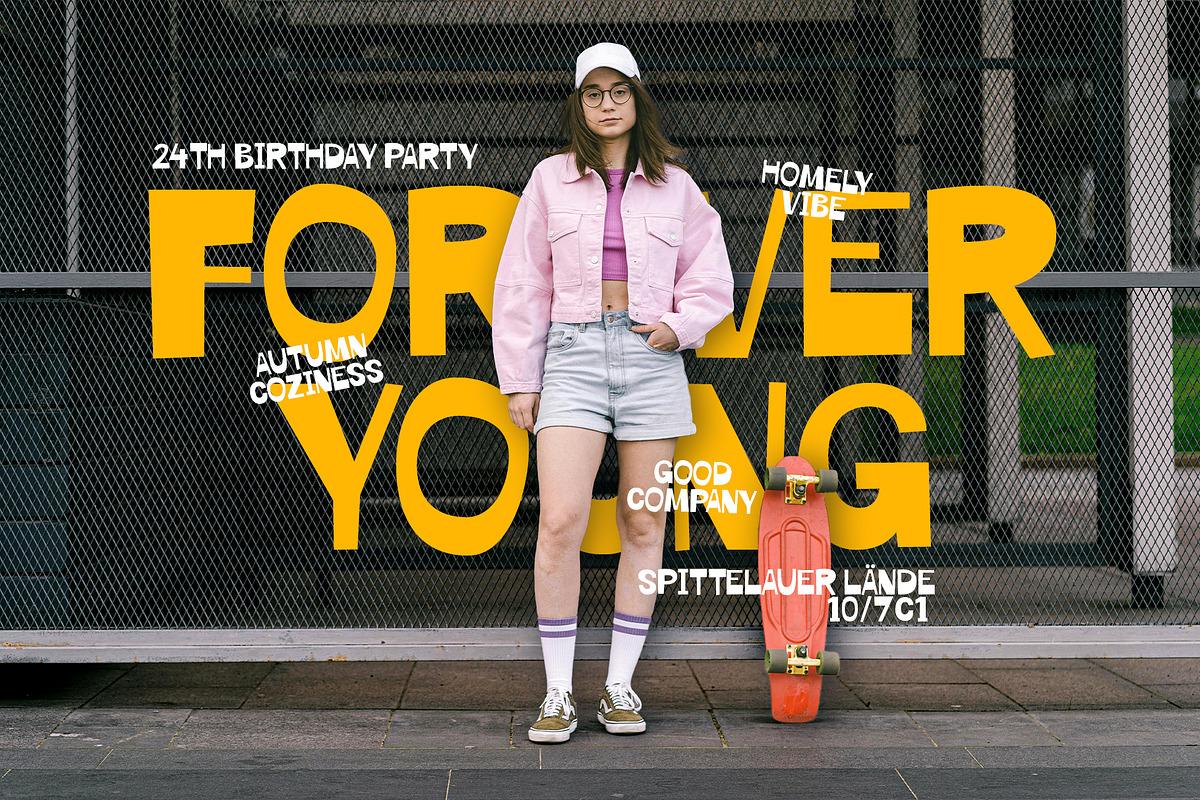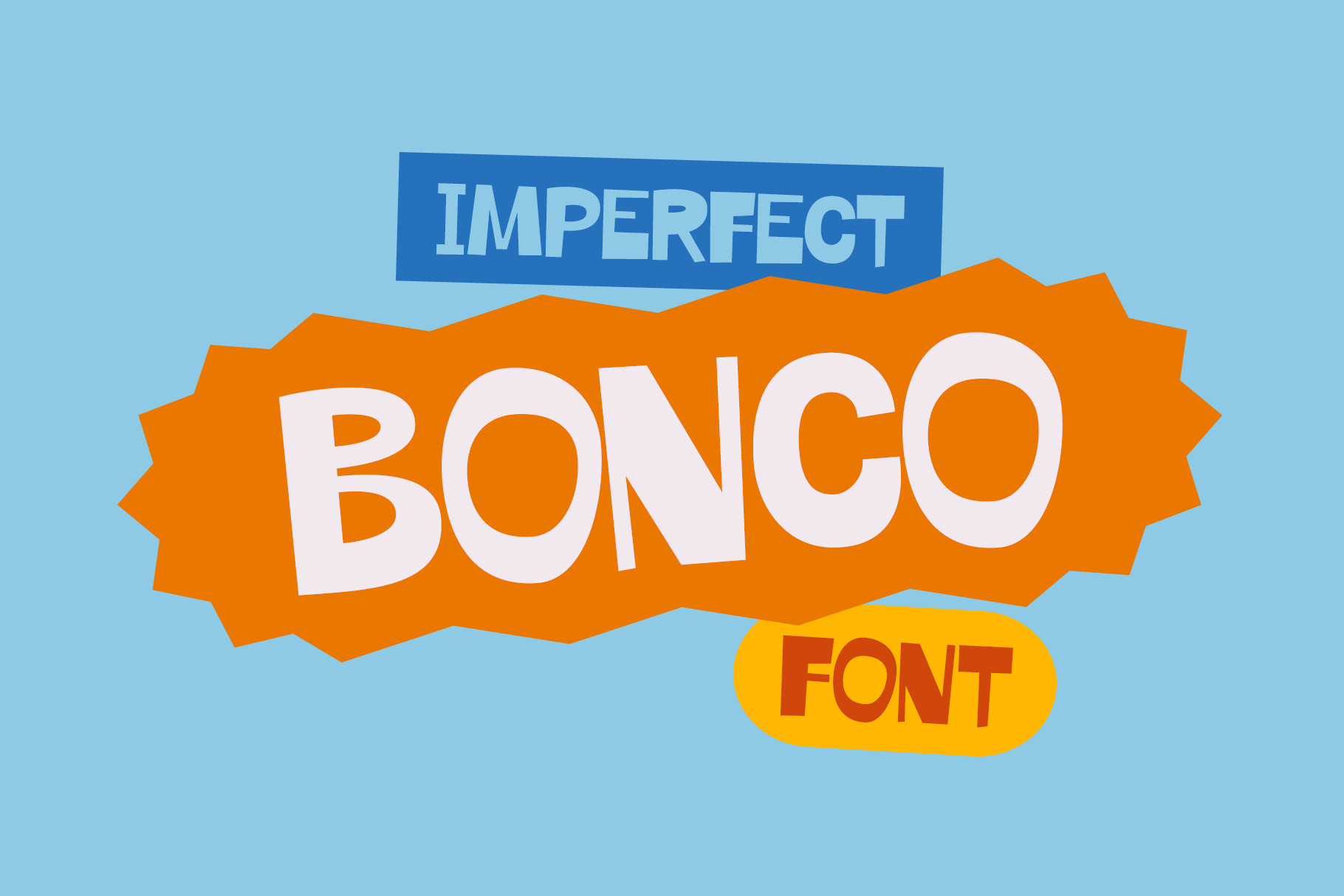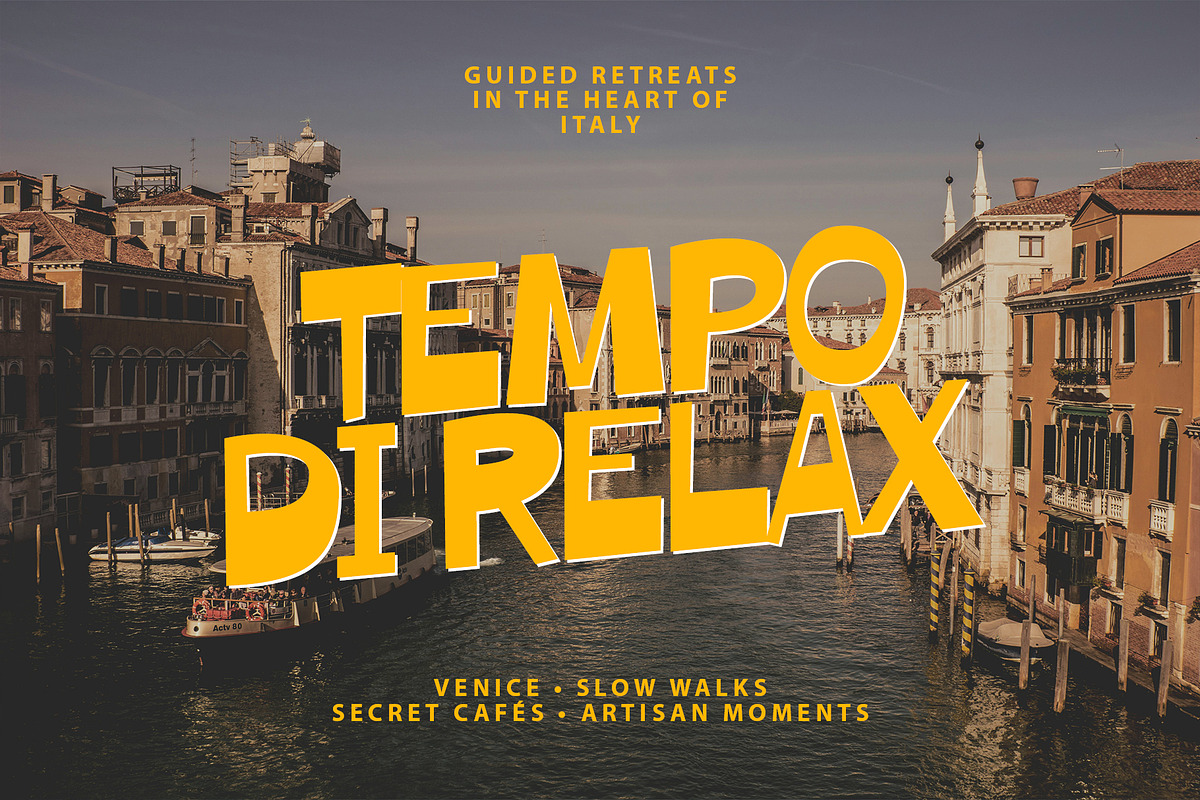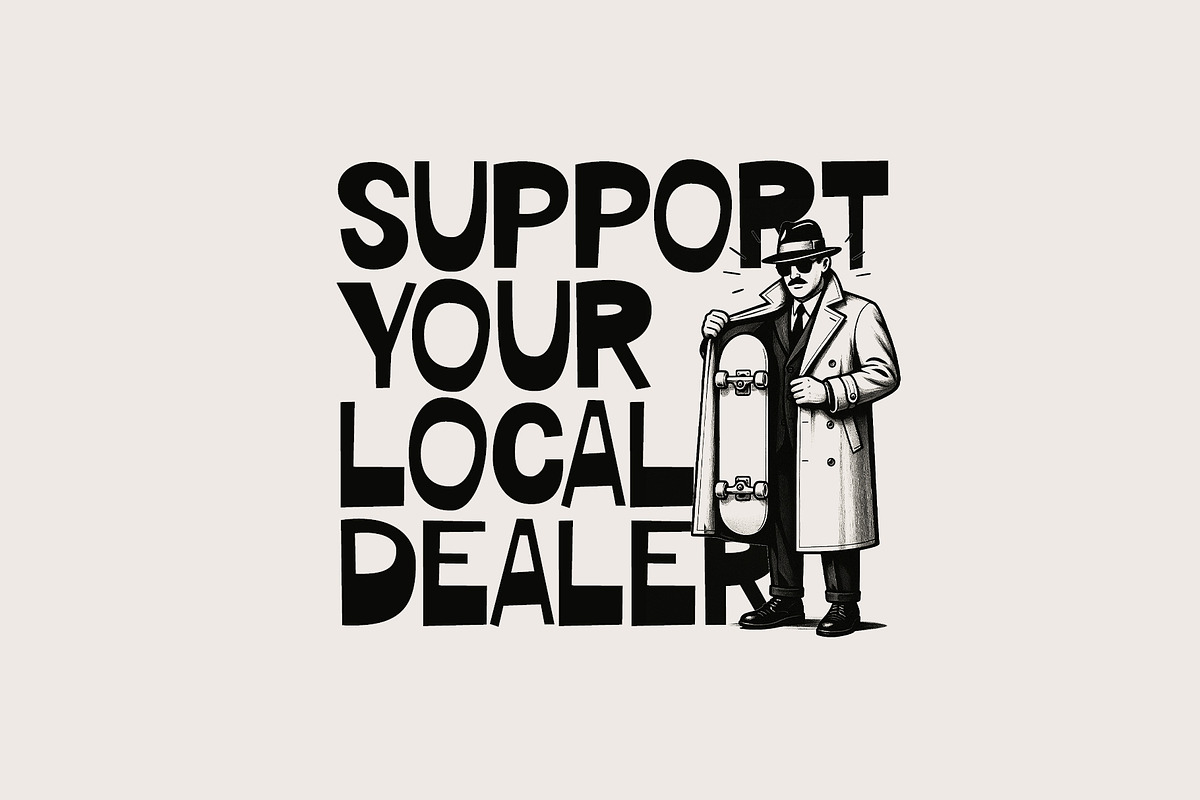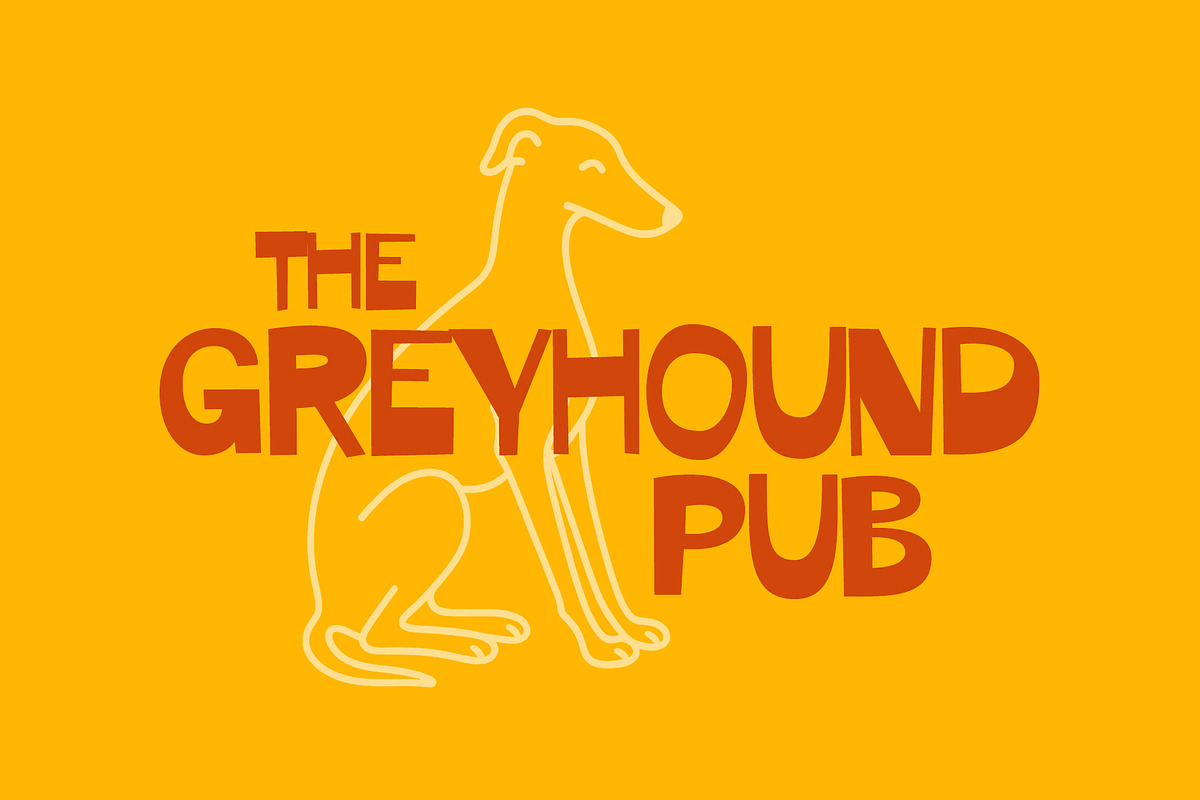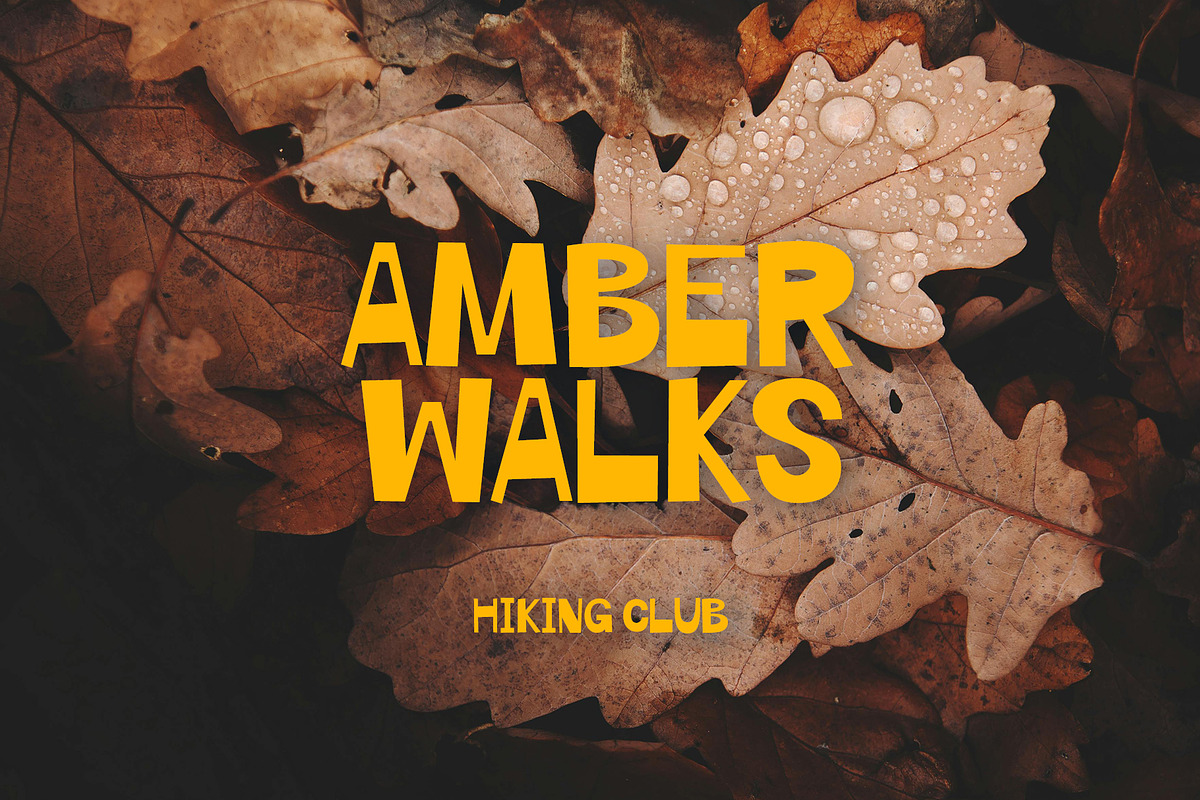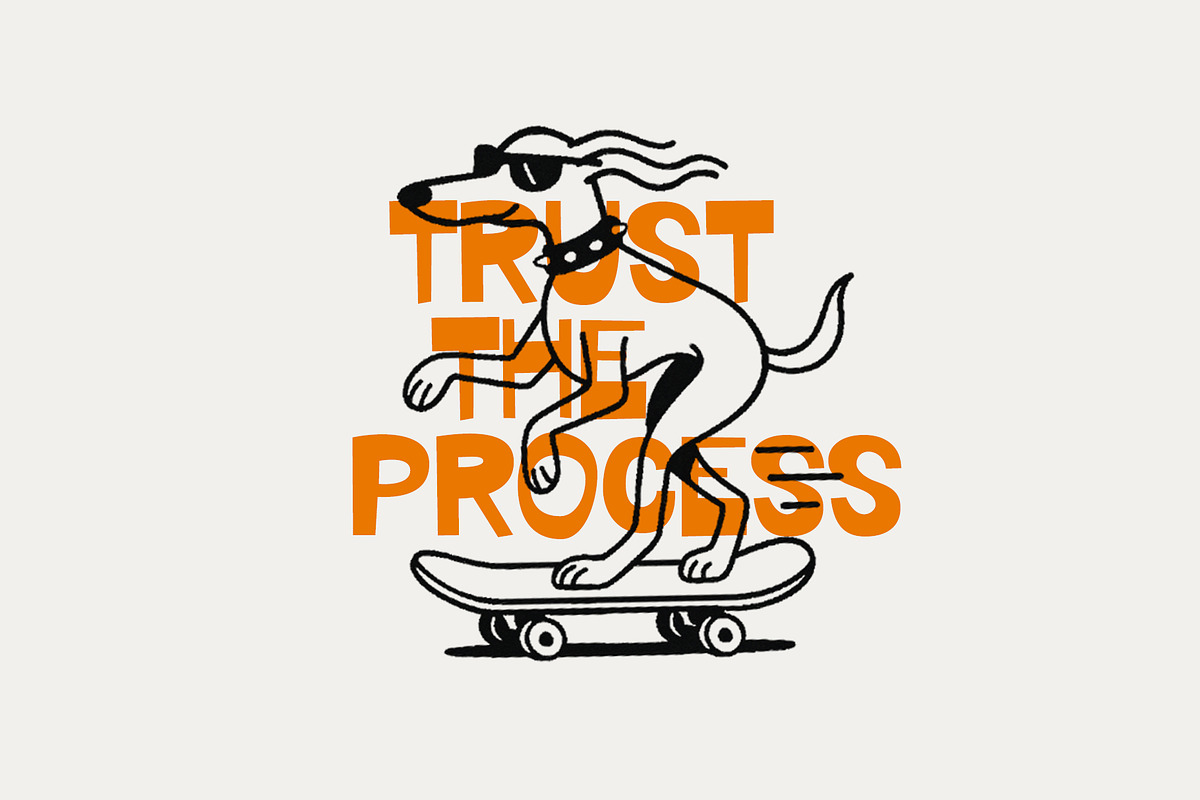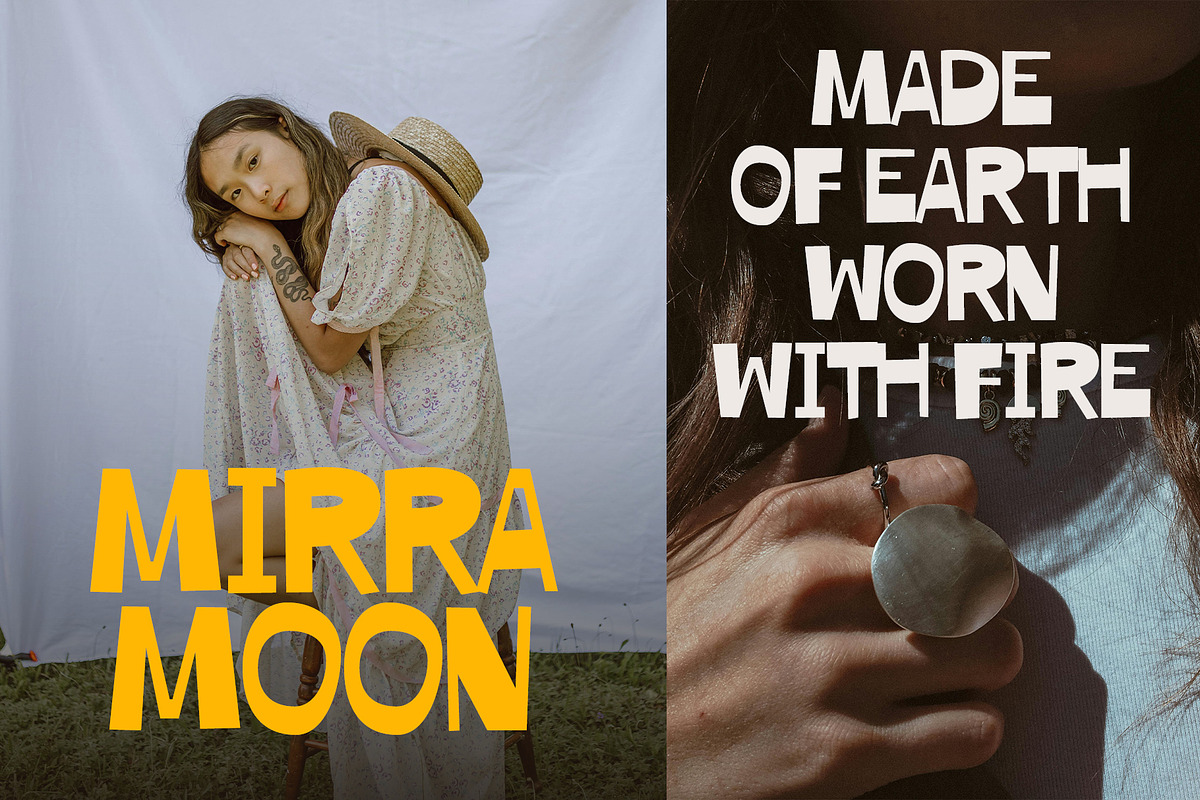
Bonko Imperfect Font
Bonco is a bold and playful display font with a fun, imperfect charm. Its hand-drawn feel and bouncy letterforms bring energy and personality to any project perfect for kids’ designs, posters, stickers, packaging, and social media graphics. Bonco is made to stand out while keeping things light-hearted and approachable.